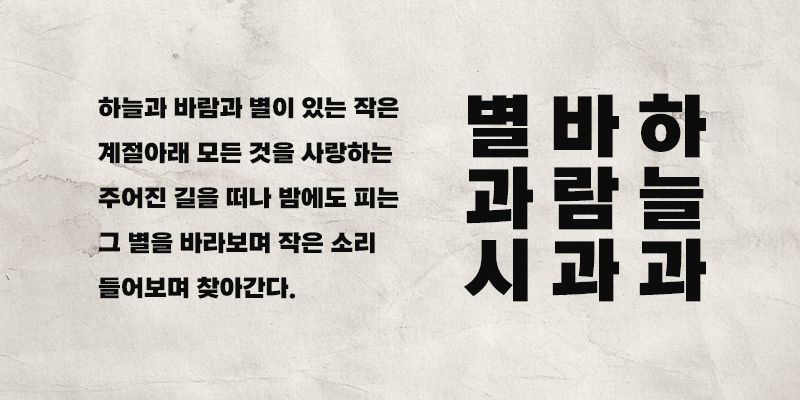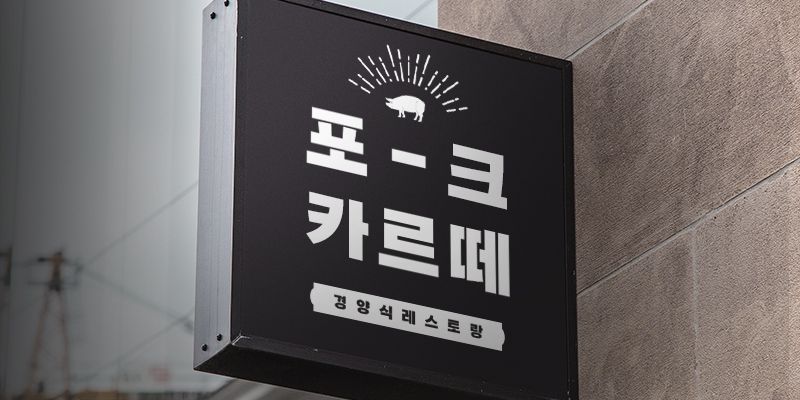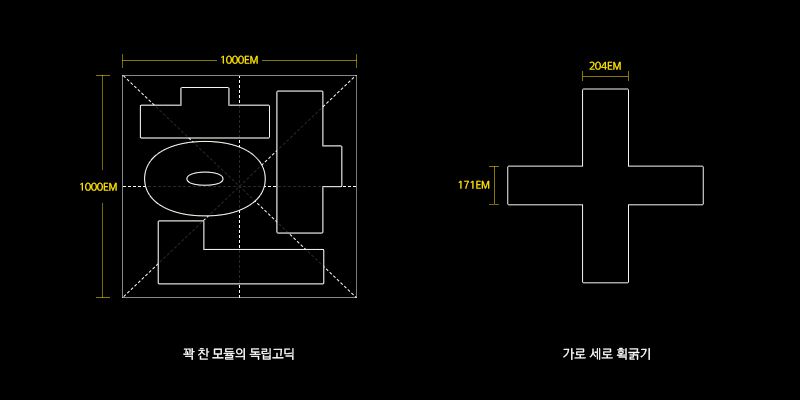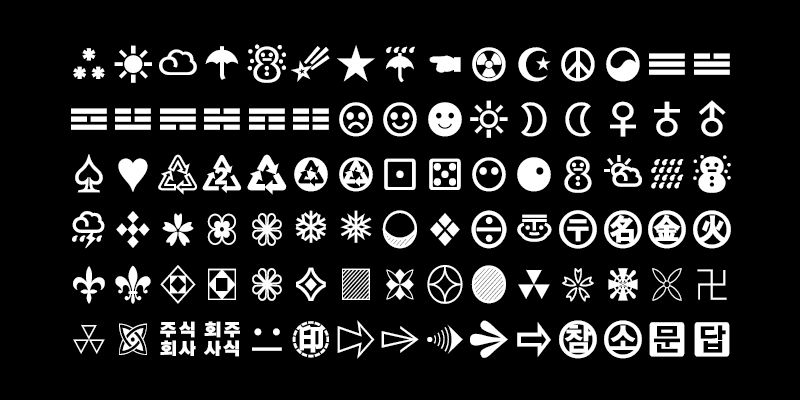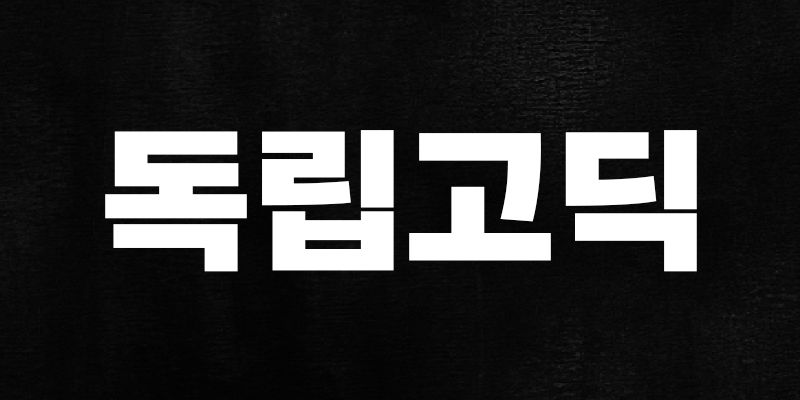
RixDongnimGothic is a retro font that expresses the social background and atmosphere and has a strong image.
Based on the time and atmosphere of Korean independence and enlightenment, this font has a full and thick weight and module. With bold impact and modern strokes, the font gives off a modern impression while expressing a retro feel.
The Dongnim series added one more set of Korean characters to be used for vertical lines. It was also designed with care, taking into account punctuation and various environments.